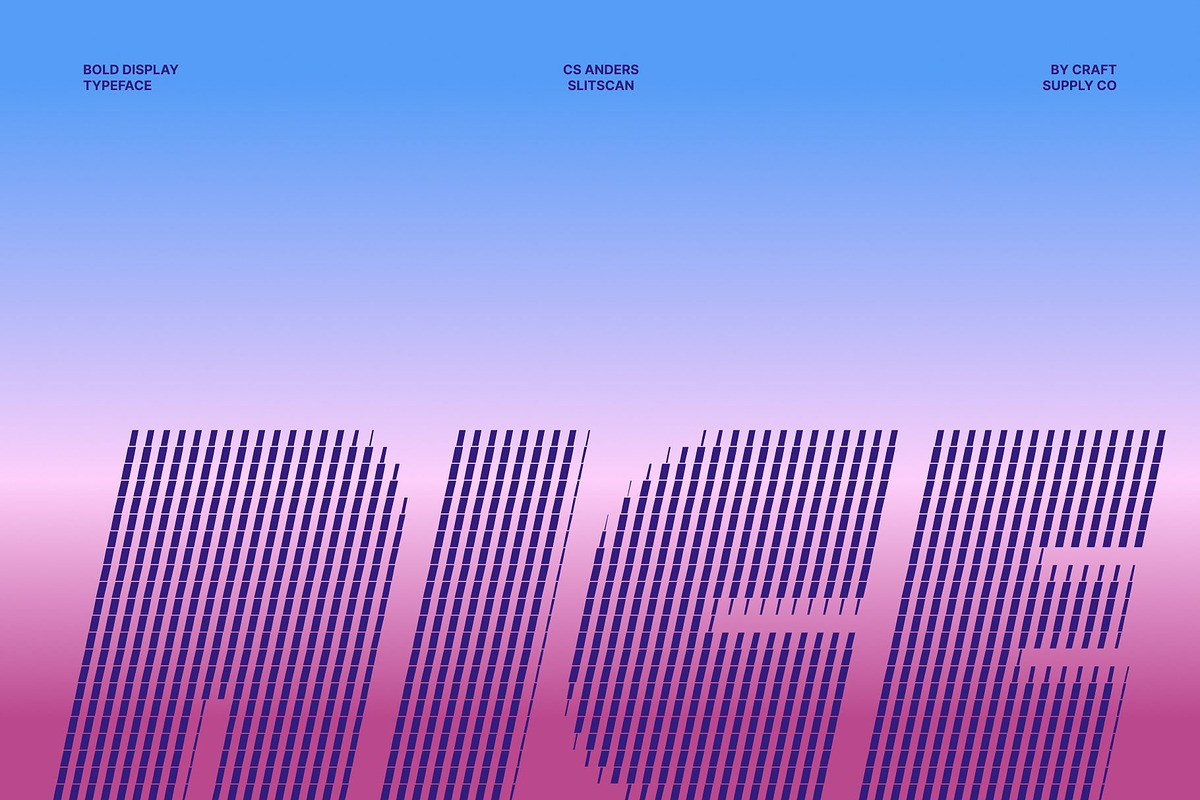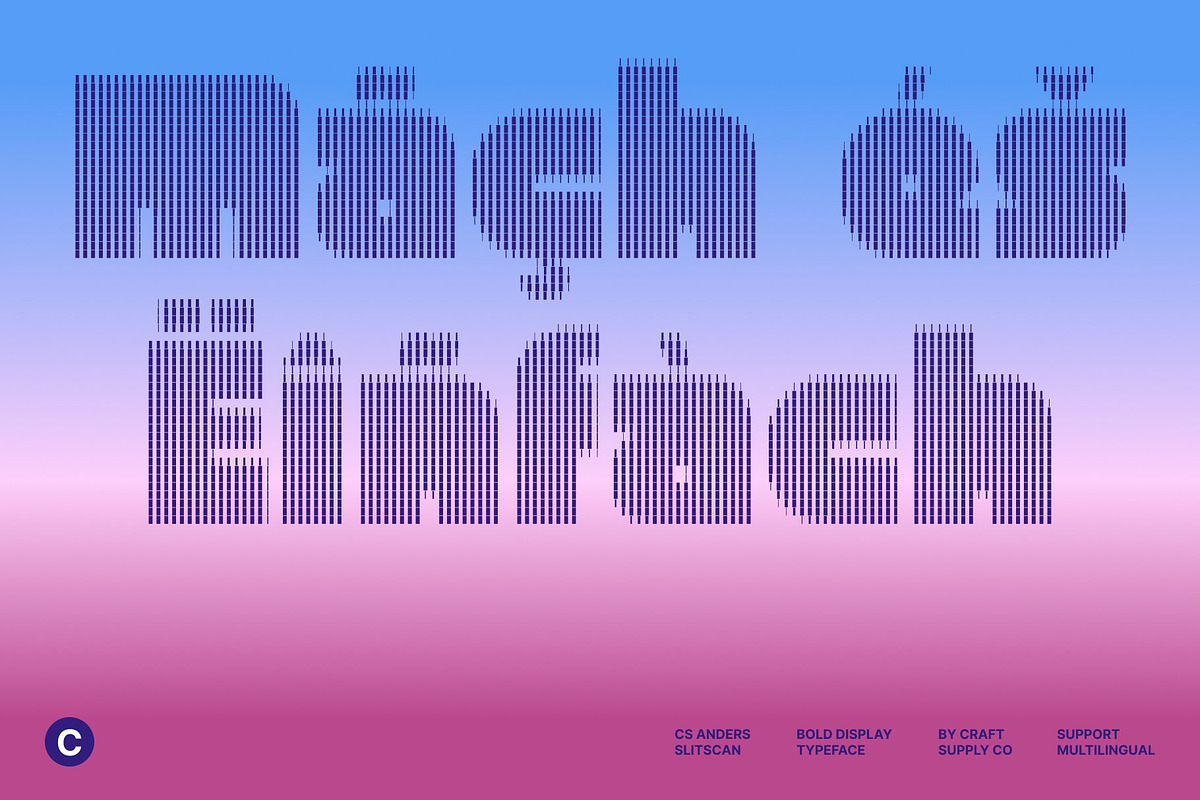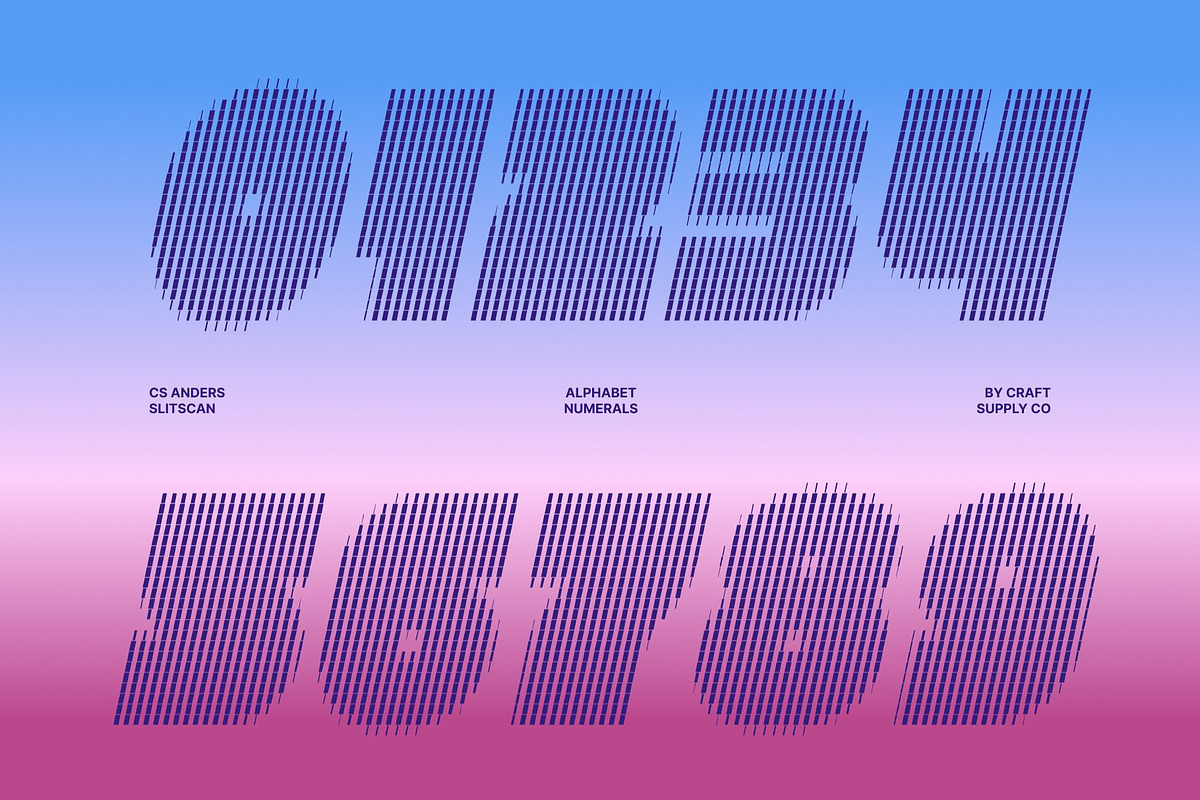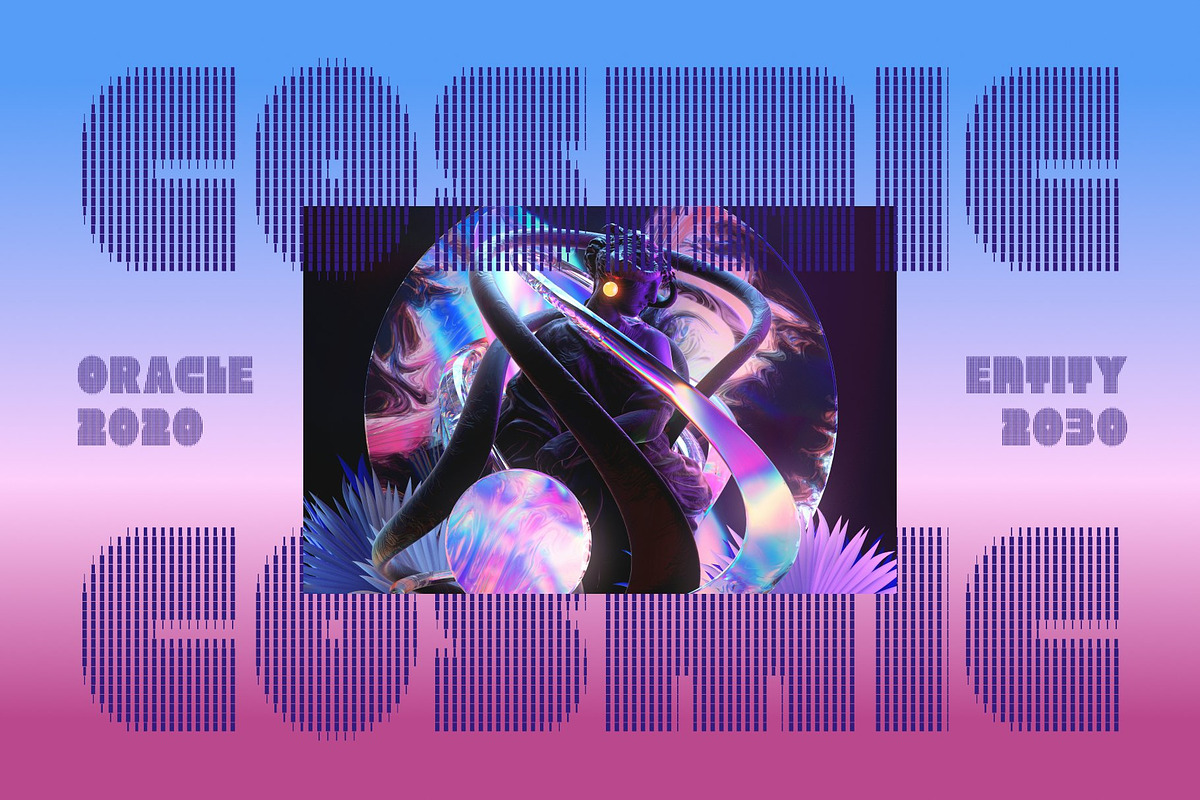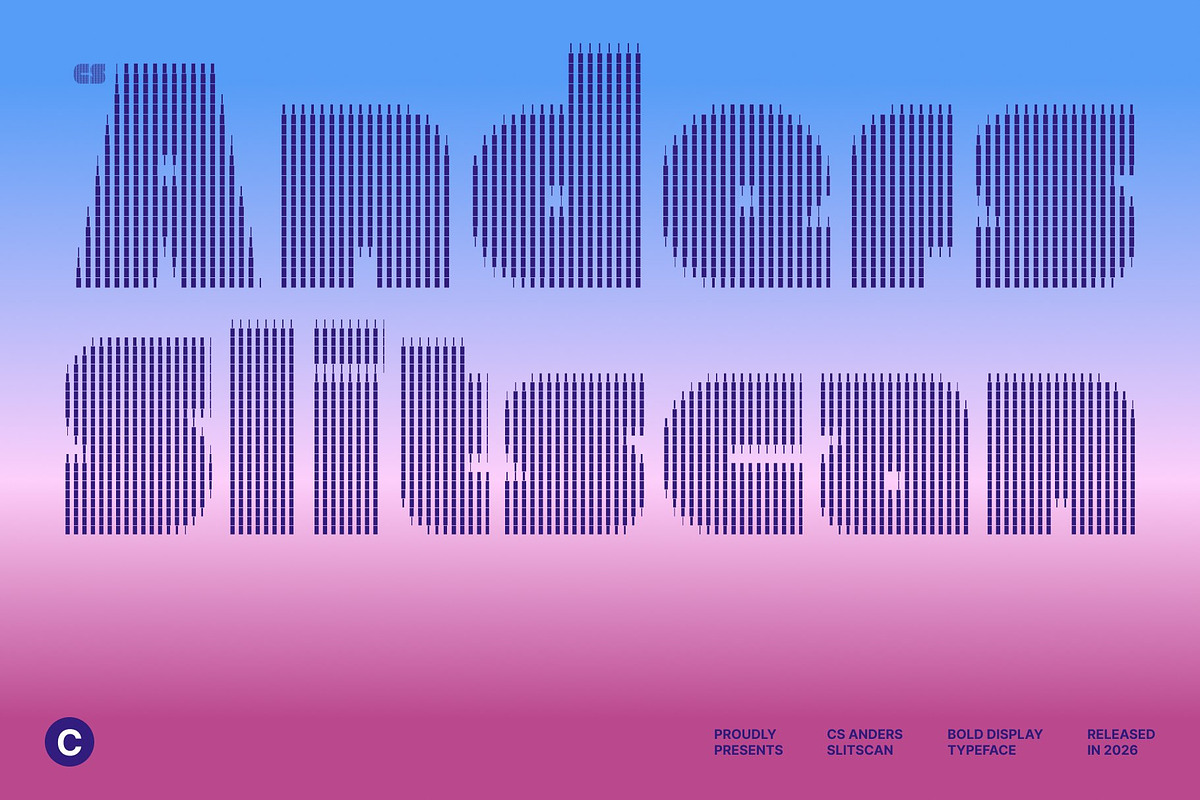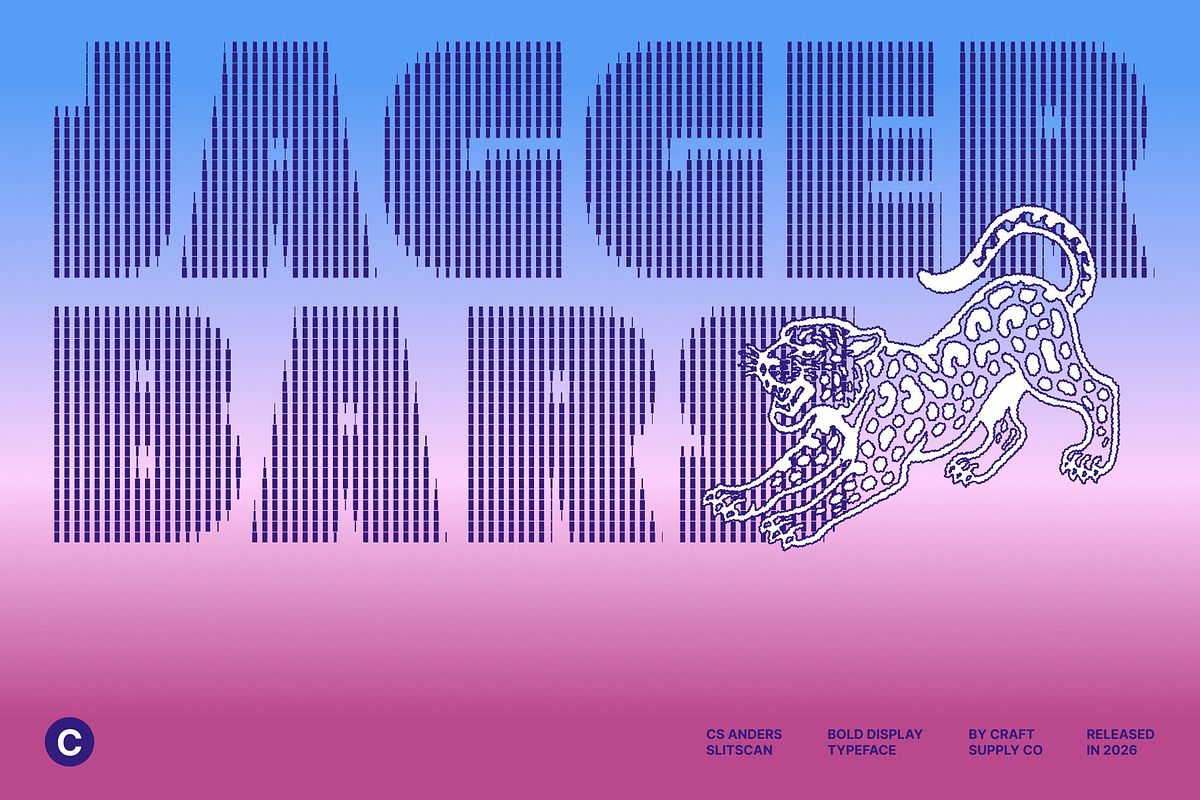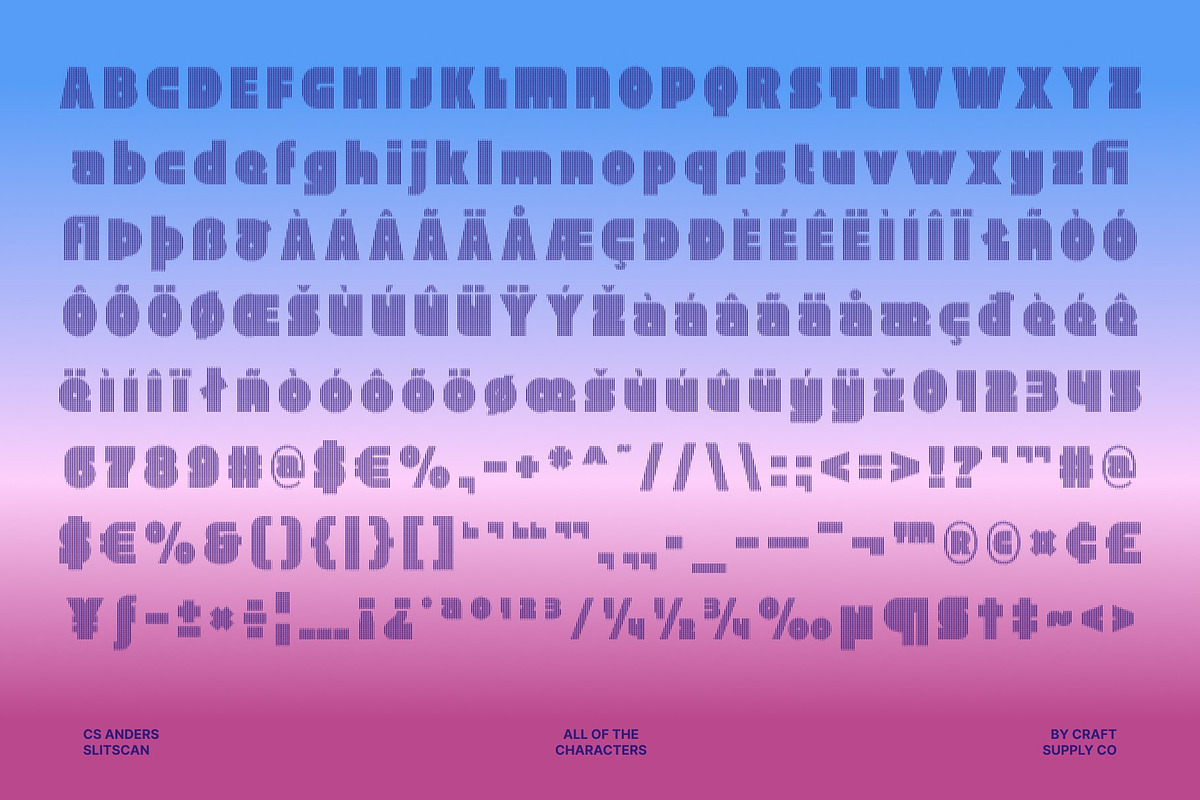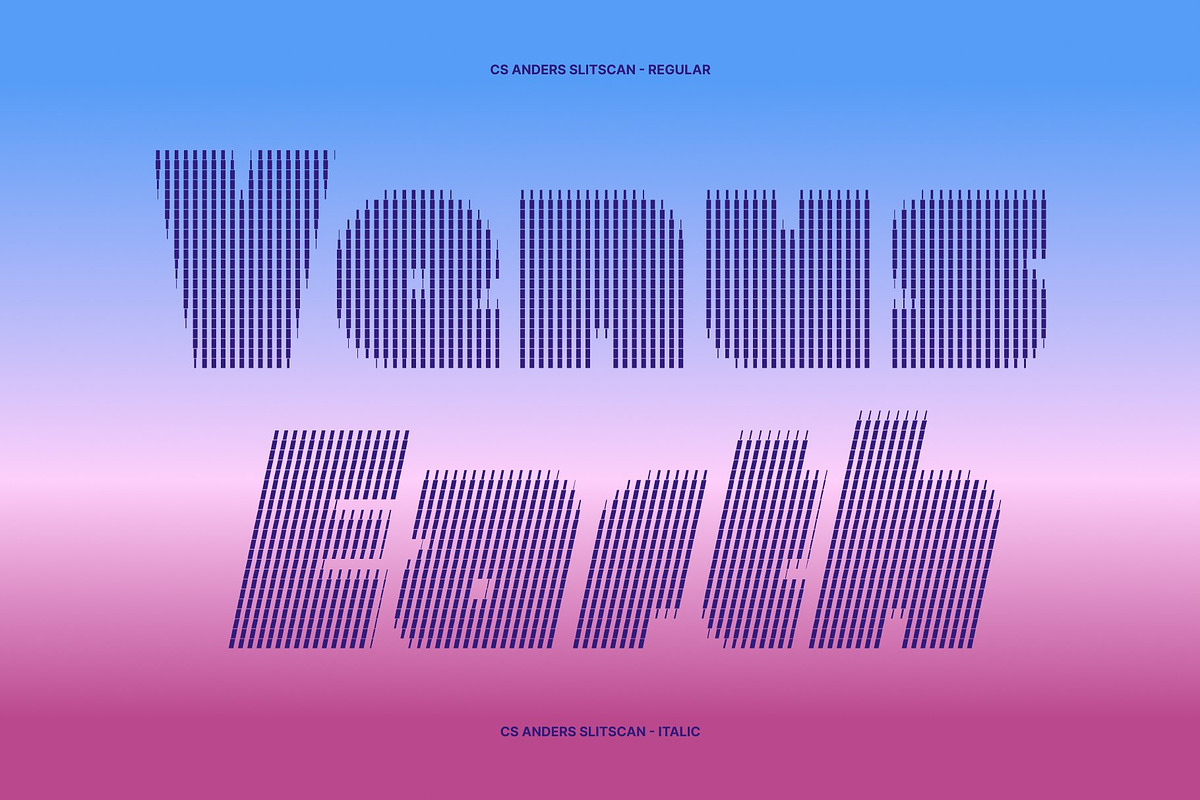
CS Anders Slitscan
CS Anders Slitscan – Retro Energy with Bold Futuristic Motion
Big, Bold, and Playfully Expressive This is a bold display sans serif typeface inspired by the vibrant spirit of 90s design. Its oversized letterforms and confident structure deliver strong visual impact while maintaining a clean, modern flow.
Slitscan Effect: Retro Meets Digital Motion Infused with the slit-scan visual effect, the font features vertical sliced layers that introduce motion, rhythm, and a subtle glitch aesthetic. This fusion transforms nostalgic retro forms into a contemporary, energetic display style.
Retro Funk with Modern Versatility Chunky, expressive shapes radiate positivity and bold personality, capturing the colorful charm of vintage aesthetics while staying fresh and relevant. The result is a playful yet powerful typeface that balances nostalgia with modern design language.
Perfect for Loud and Lively Designs Ideal for music posters, album covers, creative packaging, expressive branding, and social media visuals. Its bold forms and dynamic character make it perfect for projects that celebrate creativity, individuality, and fun.
Modern Edge with Vintage Personality While rooted in retro inspiration, this font maintains a polished silhouette suited to contemporary trends. It doesn’t just decorate it defines the mood, helping designs communicate freedom, creativity, and bold identity with confidence.